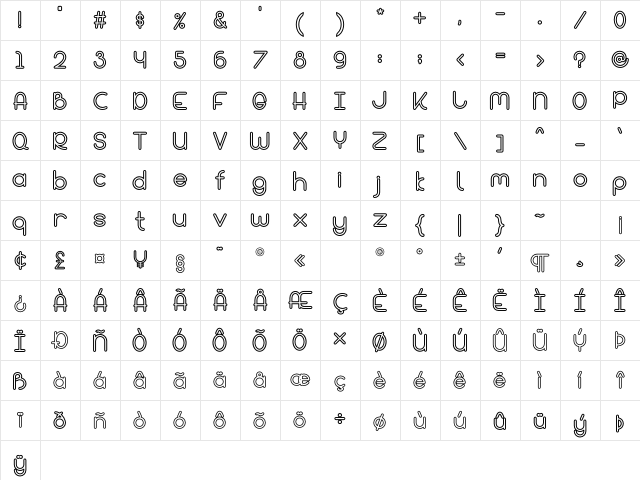
Bandar Outline
Style: Outline
Designer: Afkari Studio KanaType
Design Context for Bandar
Bandar is built around its visual character rather than neutral utility - its distinctive forms are designed to make an impression at display sizes.
Font Pairing: Pair with a clean neutral sans-serif for body copy to let Bandar's character lead without overwhelming the composition.
Pro Tip: Use Bandar exclusively at display sizes - it was designed to be seen, not read at length. Let a neutral companion handle body copy.